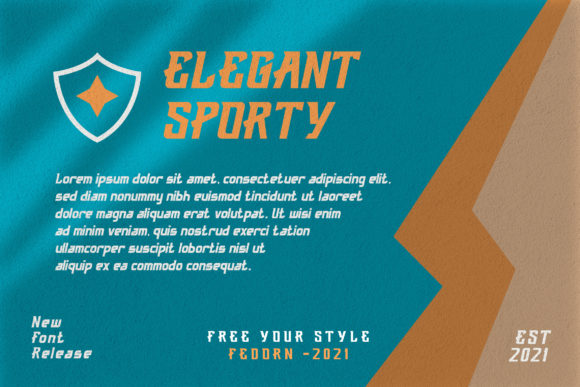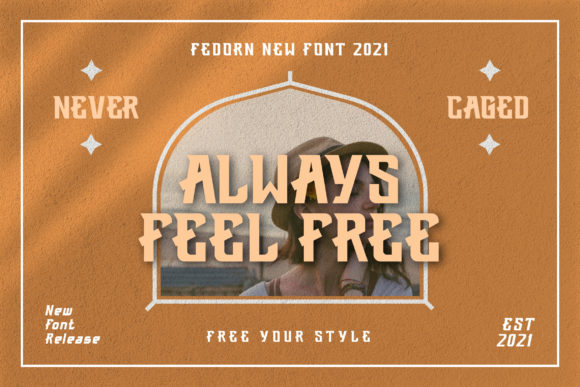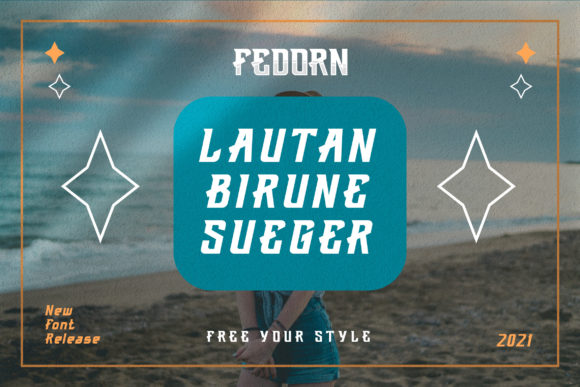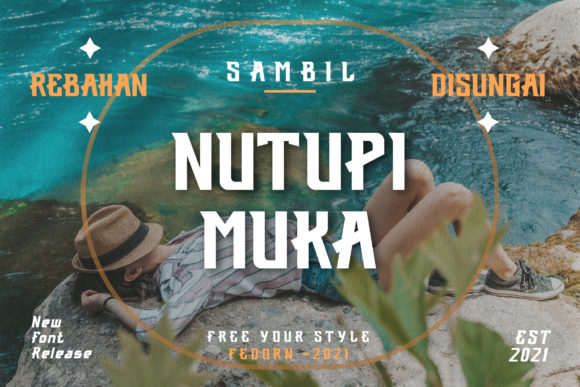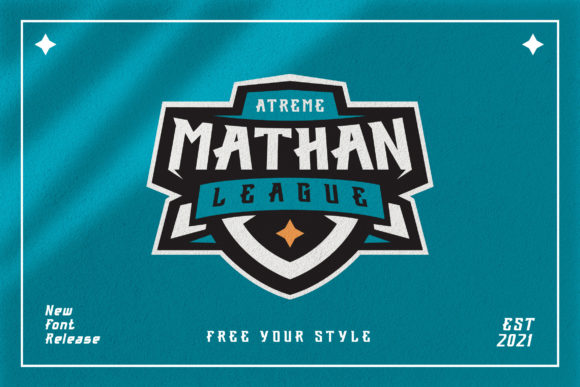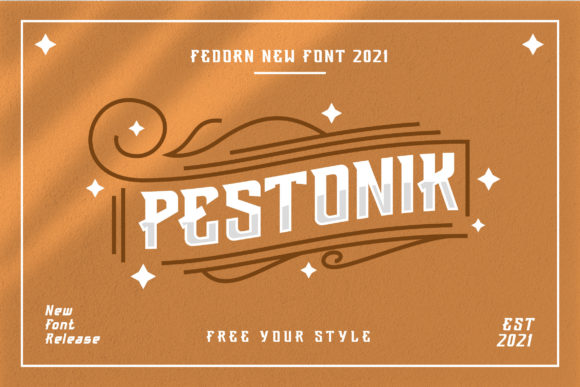
Introducing Fedorn Font: A Bold, Vintage-Styled, and Cool Display Font
Are you tired of using the same old fonts for your creative projects? Look no further than Fedorn Font, a bold, vintage-styled, and cool display font that’s sure to take your designs to the next level. Expertly crafted to make your creation look out of this world, Fedorn Font is the perfect addition to any designer’s toolkit.
What Makes Fedorn Font So Special?
Fedorn Font is a unique and stylish font that’s perfect for making a statement. Its bold and vintage-styled design makes it ideal for use on a variety of projects, from posters and flyers to logos and branding materials. The font’s cool and edgy vibe is sure to grab attention and leave a lasting impression on your audience.
Key Features of Fedorn Font
- Bold and eye-catching design: Fedorn Font is designed to stand out from the crowd, with a bold and eye-catching design that’s sure to grab attention.
- Vintage-styled aesthetic: The font’s vintage-styled aesthetic gives it a unique and stylish look that’s perfect for use on a variety of projects.
- Cool and edgy vibe: Fedorn Font has a cool and edgy vibe that’s sure to appeal to designers and crafters who want to add a touch of personality to their designs.
- High-quality design: The font is expertly designed to ensure that it looks great on a variety of devices and in a range of sizes.
How to Use Fedorn Font
Fedorn Font is a versatile font that can be used on a wide range of projects, including:
- Posters and flyers: Use Fedorn Font to create eye-catching posters and flyers that are sure to grab attention.
- Logos and branding materials: The font’s bold and vintage-styled design makes it perfect for use on logos and branding materials.
- Social media graphics: Use Fedorn Font to create social media graphics that stand out from the crowd.
- Web design: The font’s clean and stylish design makes it perfect for use on websites and blogs.
Why Designers and Crafters Love Fedorn Font
Fedorn Font is a favorite among designers and crafters for a number of reasons, including:
- Unique and stylish design: The font’s unique and stylish design makes it a great way to add personality to your designs.
- Easily readable: Despite its bold design, Fedorn Font is easily readable, even at small sizes.
- Versatile: The font can be used on a wide range of projects, from posters and flyers to logos and branding materials.
- High-quality: The font is expertly designed to ensure that it looks great on a variety of devices and in a range of sizes.
- Font type: Display font
- Font style: Bold, vintage-styled
- Language support: English and other languages that use the Latin alphabet
- What is Fedorn Font?: Fedorn Font is a bold, vintage-styled, and cool display font that’s perfect for making a statement.